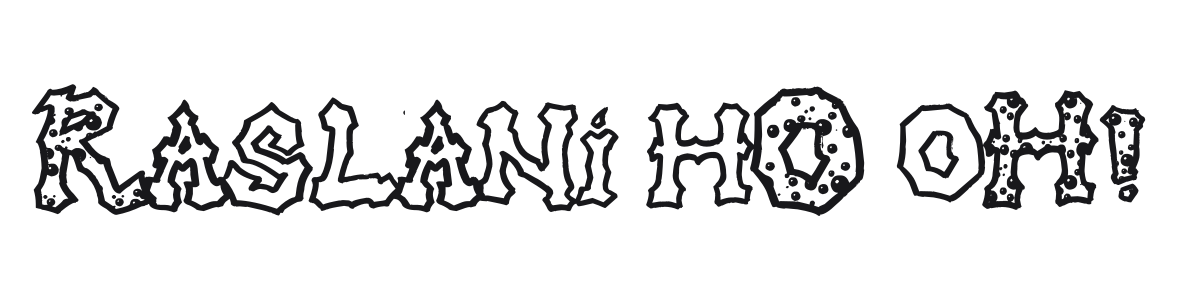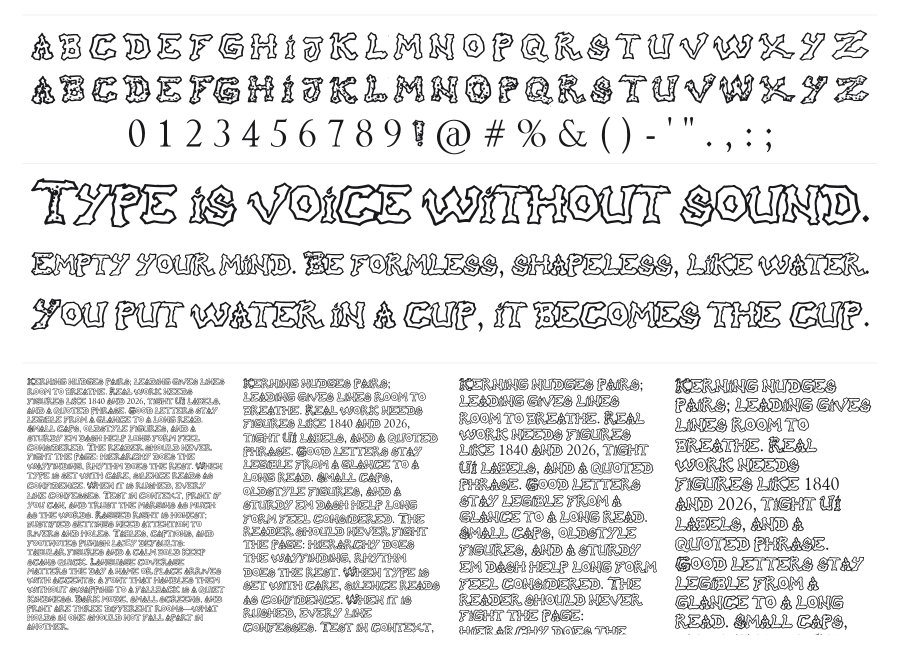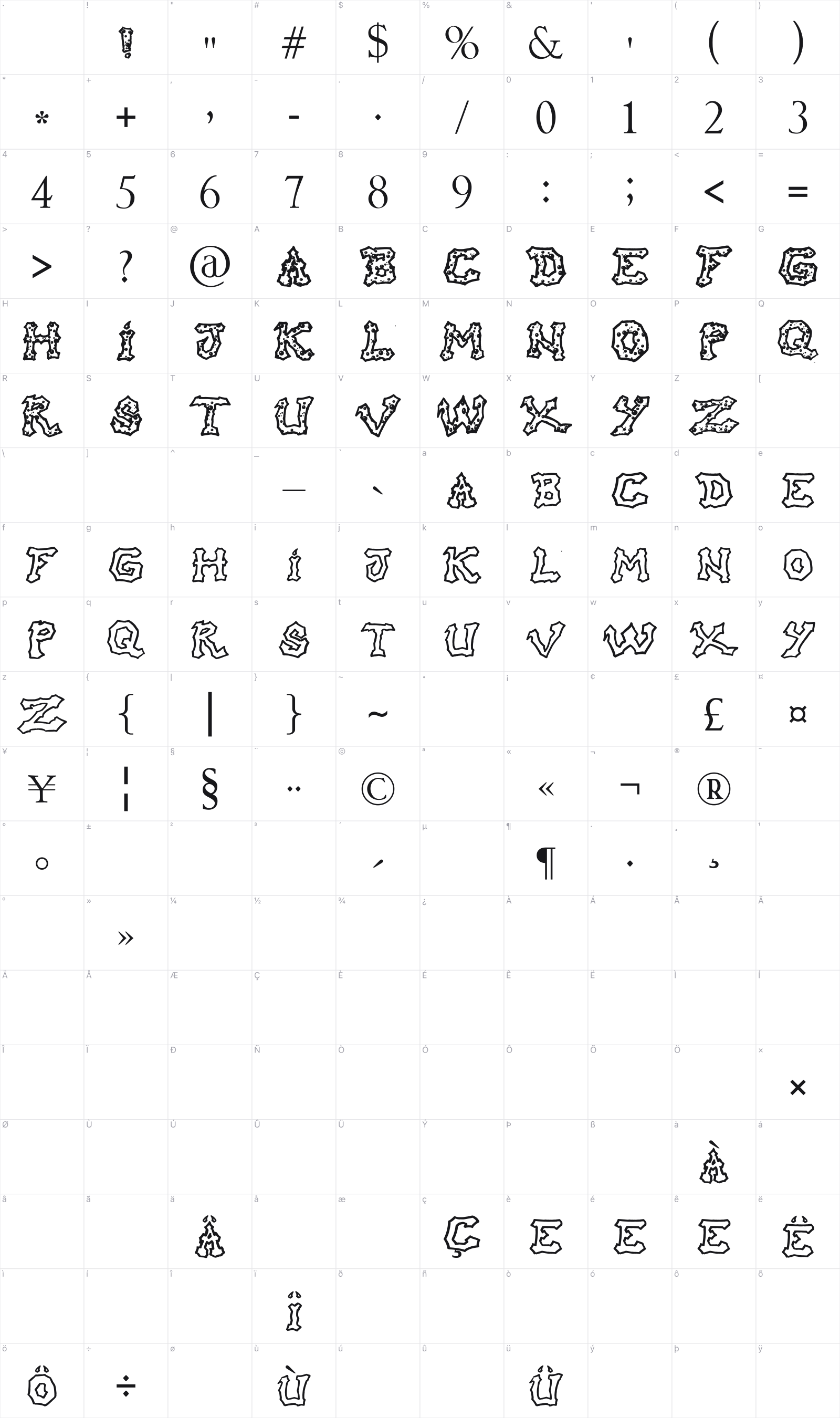
Raslani hO oH!
Raslani hO oH! is a chunky outlined grunge display font with deliberately rough, irregular edges on every character. The thick outlines and jagged contours give it an underground, hand-hewn quality somewhere between street art and horror comic lettering. It works best big, where the texture and energy come through.